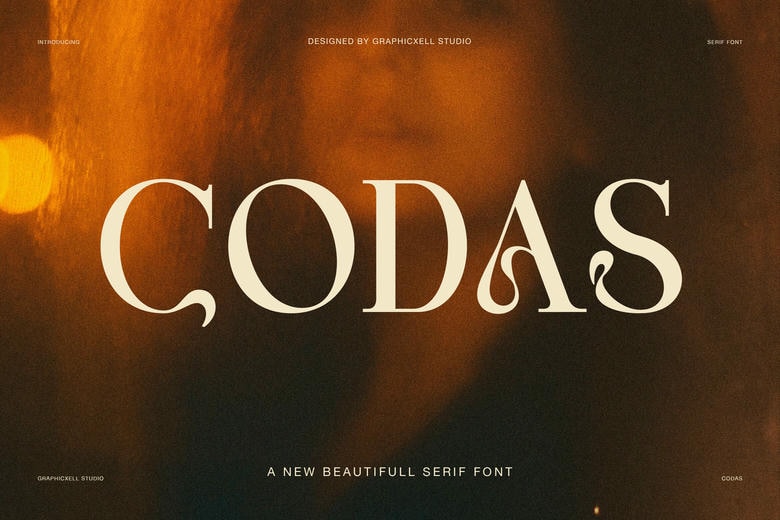
Codas Font
Codas Elegant Serif Font is a stylish display serif designed for those who want a refined, artistic, and modern look. Its clean lines are combined with small details that make it stand out. With sharp serifs, tall proportions, and subtle decorative alternates, Codas feels both classic and new.
Codas Elegant Serif Font